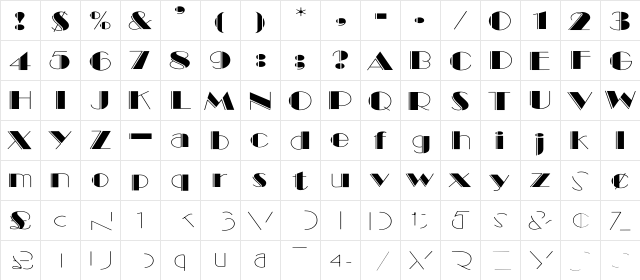
BalletEngraved Wide Regular
Design Context for BalletEngraved Wide Typeface
BalletEngraved Wide brings ornamental detail and strong personality to headlines and identities, where visual impact matters more than quiet functionality.
Font Pairing: Pair with a clean neutral sans-serif for body copy to let BalletEngraved Wide's character lead without overwhelming the composition.
Pro Tip: Treat BalletEngraved Wide as the centrepiece of your typographic hierarchy. One strong heading set in a decorative face can carry an entire layout.